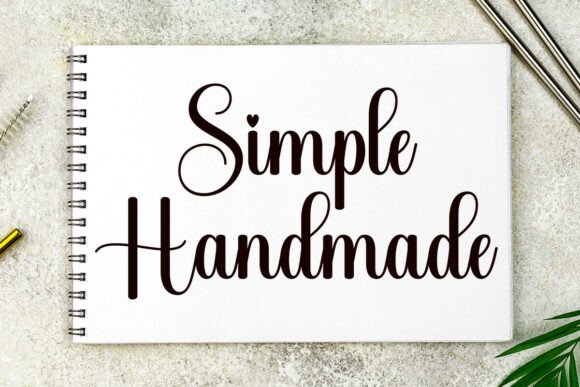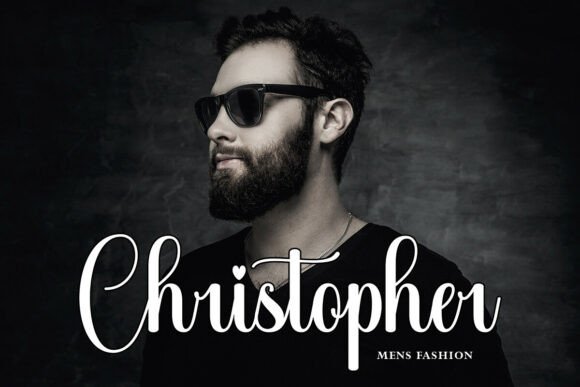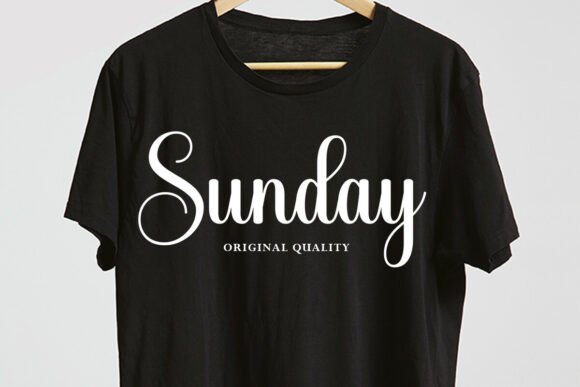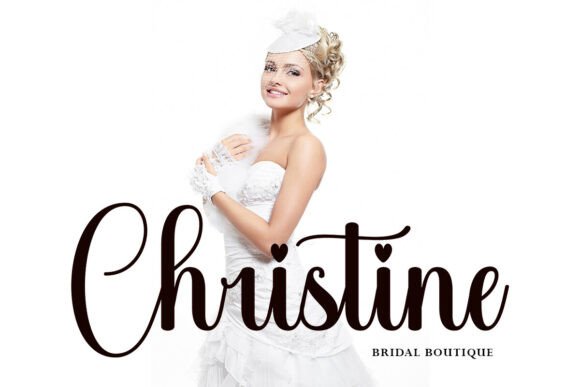
Ducky Smile Font: Elevate Your Designs with Elegant Cursive Charm
Are you looking for a font that can add a touch of warmth and personality to your designs? Look no further than the Ducky Smile Font, a charming and elegant cursive handwritten font that is sure to bring a smile to your face. With its soft, flowing strokes and graceful character, this font delivers a beautifully natural look that enhances a wide range of design styles.
The Characteristics of Ducky Smile Font
Ducky Smile Font is a cursive handwritten font that exudes a gentle and romantic aesthetic, making it an excellent choice for projects that require a touch of joy and sophistication. Its elegant and refined design makes it perfect for designers who seek a balance between elegance and casual charm. The font’s soft, flowing strokes and graceful character give it a beautifully natural look that is sure to elevate your designs.
Uses of Ducky Smile Font
Ducky Smile Font is a versatile font that can be used for a wide range of design projects, including:
• Branding: Use Ducky Smile Font to create a unique and memorable brand identity that reflects your company’s personality and values.
• Logos: Create a stunning logo that stands out from the crowd with the help of Ducky Smile Font.
• Wedding Designs: Add a touch of romance and elegance to your wedding designs, including invitations, programs, and decorations.
• Greeting Cards: Create beautiful and heartfelt greeting cards for special occasions, such as birthdays, anniversaries, and holidays.
• Fashion Lookbooks: Use Ducky Smile Font to add a touch of sophistication and glamour to your fashion lookbooks and catalogs.
• Marketing Promotions: Elevate your marketing promotions, including brochures, flyers, and social media graphics, with the help of Ducky Smile Font.
Why Choose Ducky Smile Font?
There are many reasons why Ducky Smile Font is an excellent choice for designers and crafters, including:
• Elegant and Refined Design: Ducky Smile Font has an elegant and refined design that adds a touch of sophistication to any design project.
• Versatility: This font can be used for a wide range of design projects, from branding and logos to wedding designs and greeting cards.
• Easy to Read: Ducky Smile Font is easy to read, even at small sizes, making it perfect for body text and captions.
• Unique and Memorable: This font has a unique and memorable design that will help your designs stand out from the crowd.
Tips for Using Ducky Smile Font
Here are some tips for using Ducky Smile Font effectively in your design projects:
• Pair with Other Fonts: Pair Ducky Smile Font with other fonts to create a unique and interesting contrast.
• Use for Headings and Titles: Use Ducky Smile Font for headings and titles to add a touch of elegance and sophistication.
• Experiment with Colors: Experiment with different colors and textures to add depth and interest to your designs.
• Keep it Simple: Keep your designs simple and clean to allow the beauty of Ducky Smile Font to shine through.
In conclusion, Ducky Smile Font is a charming and elegant cursive handwritten font that is sure to bring warmth and personality to your designs. With its soft, flowing strokes and graceful character, this font delivers a beautifully natural look that enhances a wide range of design styles. Whether used for branding, logos, wedding designs, greeting cards, fashion lookbooks, or marketing promotions, Ducky Smile Font adds a refined yet relaxed feel to every composition. So why wait? Download Ducky Smile Font today and elevate your designs to the next level!